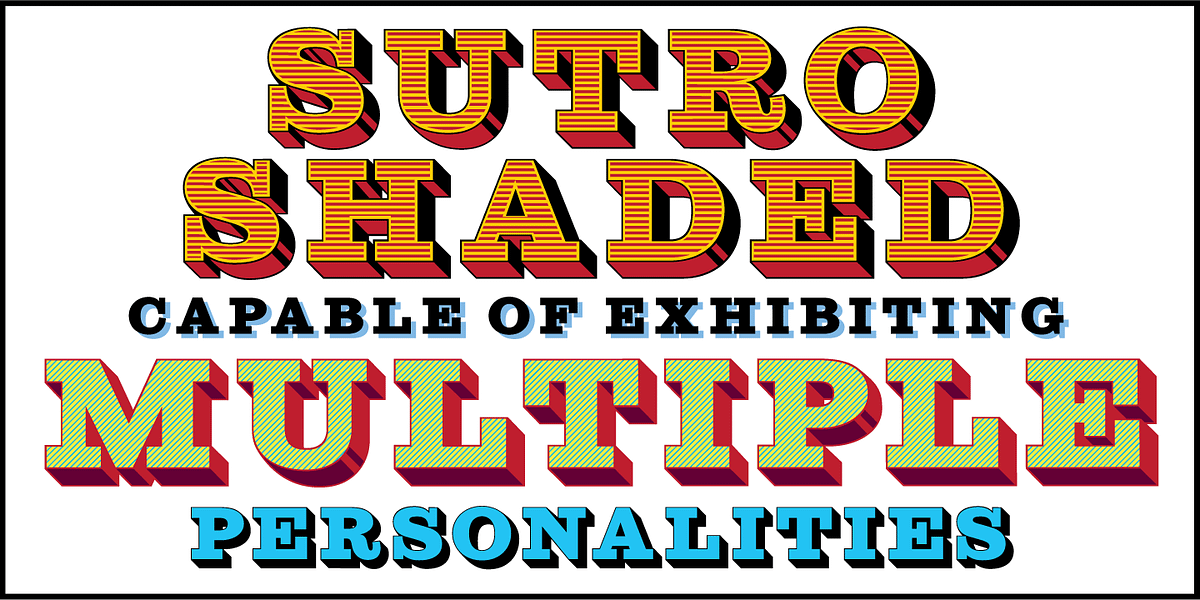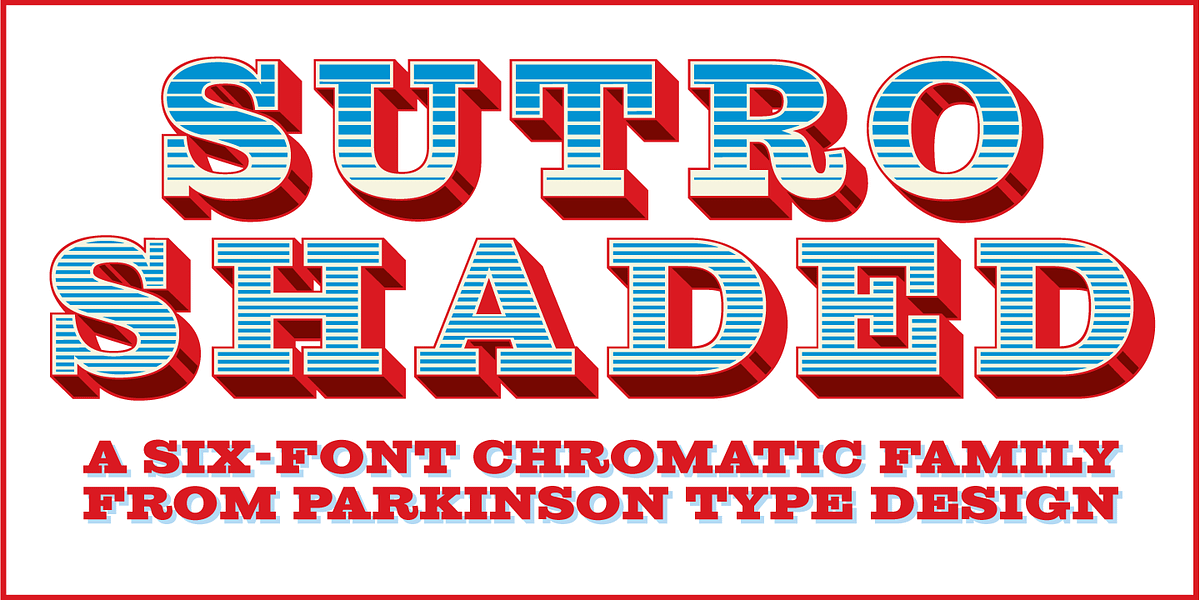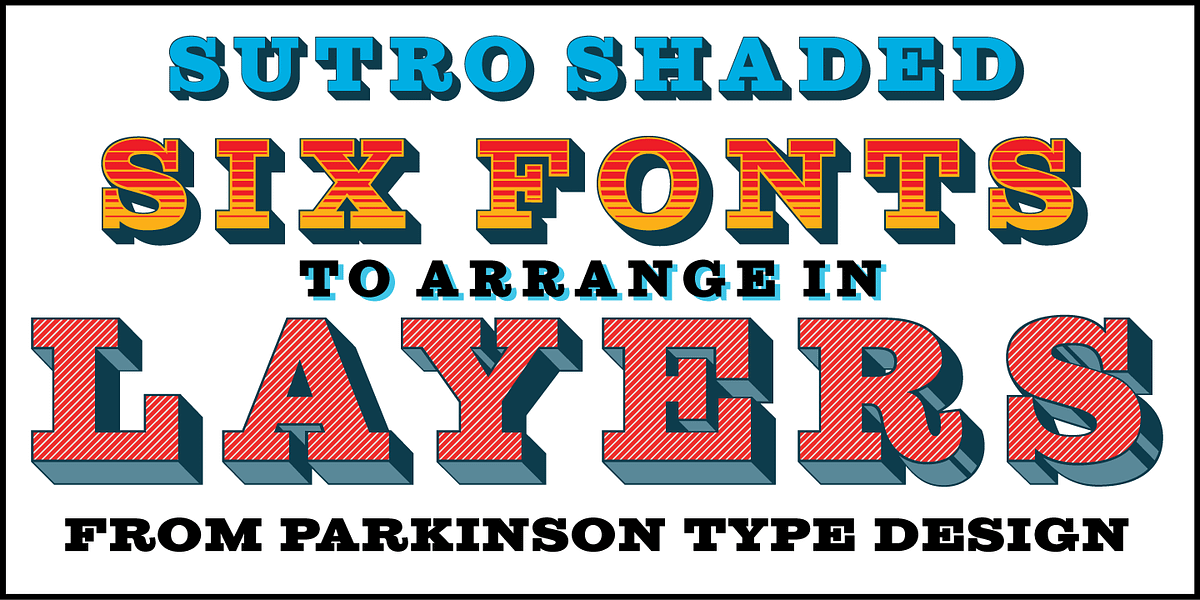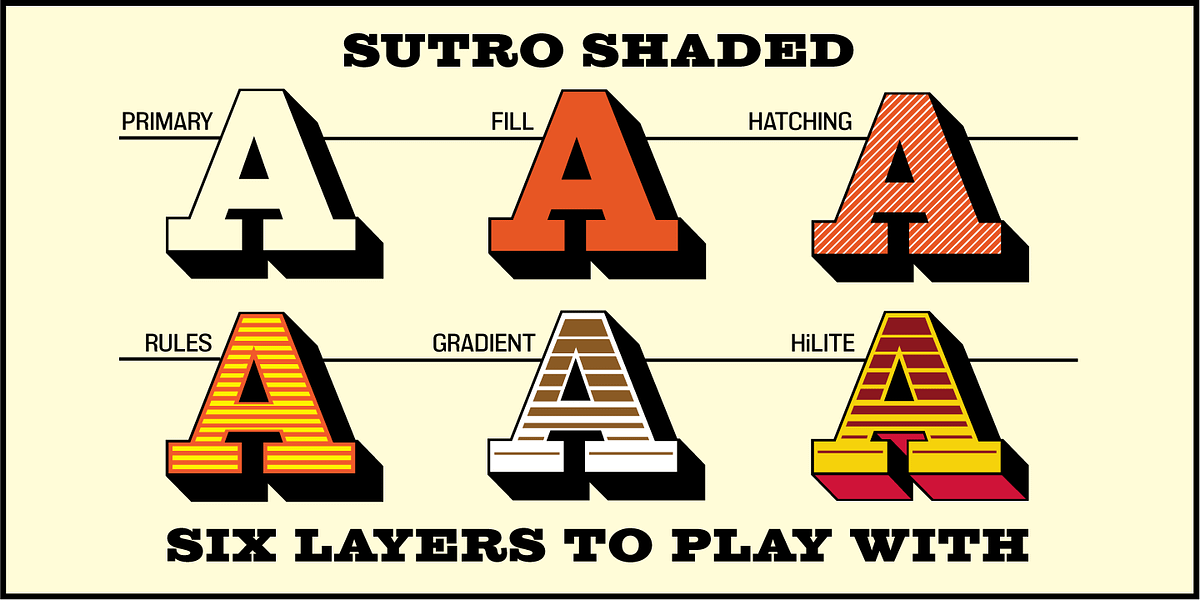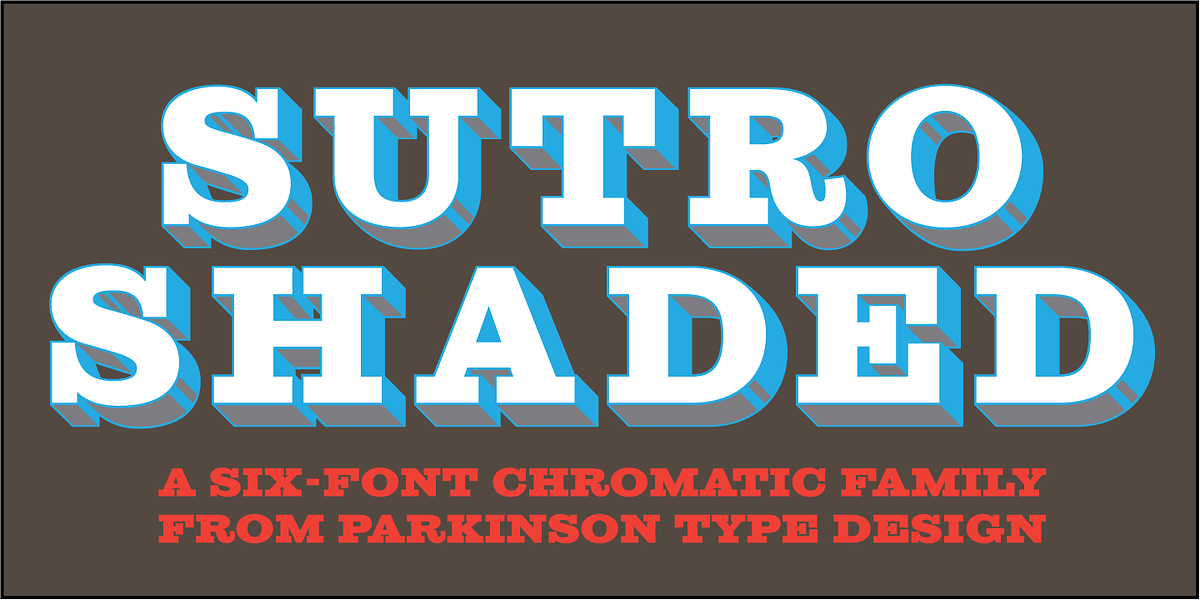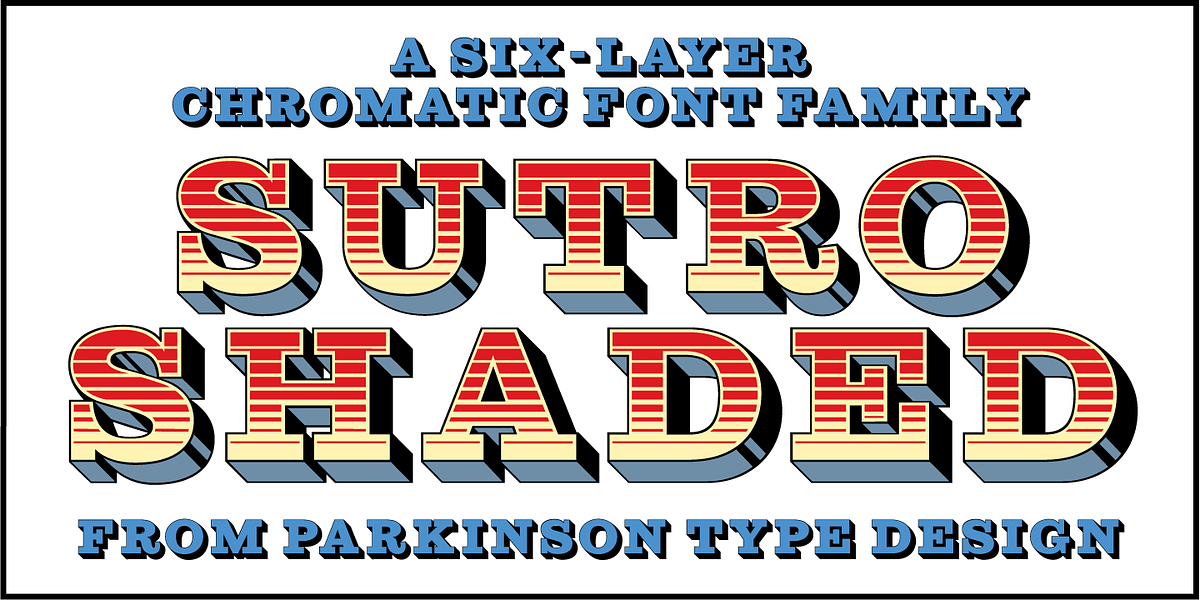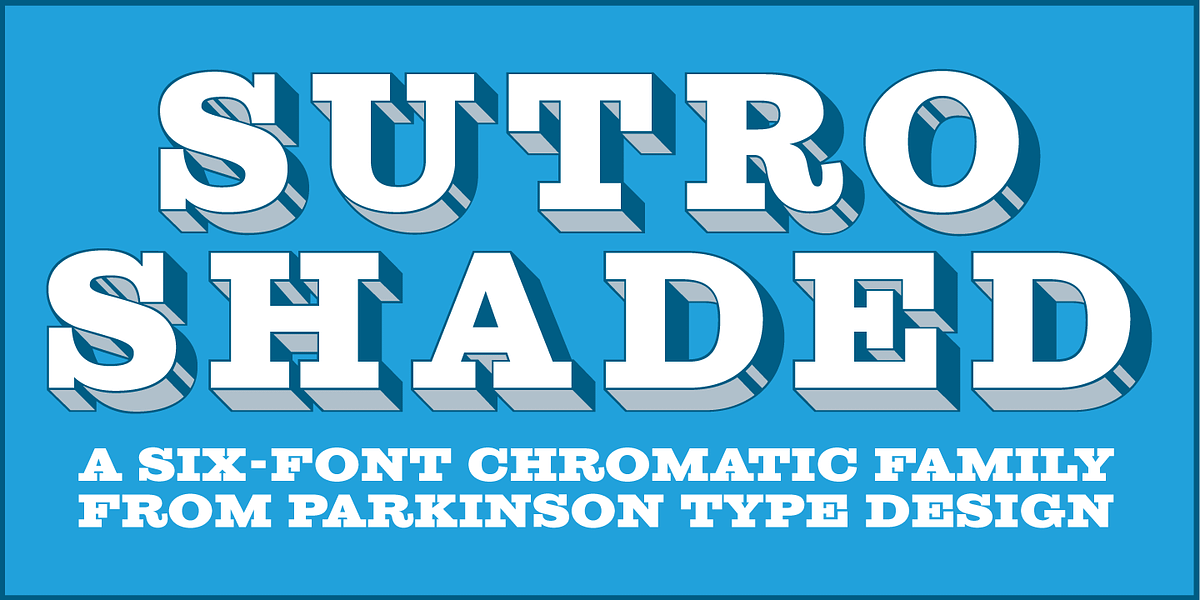
Sutro Shaded
The Sutro family is a textured geometric display slab font. Its design features layered effects and shadowing, creating a three-dimensional look. The font comes in various styles including Fill, Gradient, Hatching, Rules and Hi-Lite, allowing for diverse visual combinations.